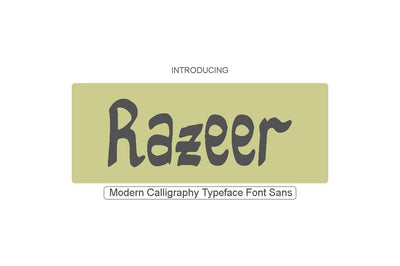
Razeer Sans
Razeer Sans is a soft and beautiful font that has a connection to the upper part of the letter, this is something unique but very beautiful, luxury and charming. This font is to complement your design needs in making amazing works.
Razeer Sans is perfect for branding, wedding invitations, magazines, mugs, business cards, quotes, posters, and many more that you can use on your big project will be very beautiful.
Razeer Sans has been equipped with the OpenType feature and has many glyphs. and of course having a lot of flying machines will be able to choose letters to your liking, lots of variations and choices for each letter, so you can adjust your design choices and also have other languages ??supported.
Can be used for various purposes.such as headings, logos, wedding invitation, t-shirt, letterhead, signage, lable, news, posters, badges etc. To enable the OpenType Stylistic alternates, you need a program that supports OpenType features such as Adobe Illustrator CS, Adobe Indesign & CorelDraw X6-X7.
Can be used for various purposes.such as headings, logos, wedding invitation, t-shirt, letterhead, signage, lable, news, posters, badges etc.